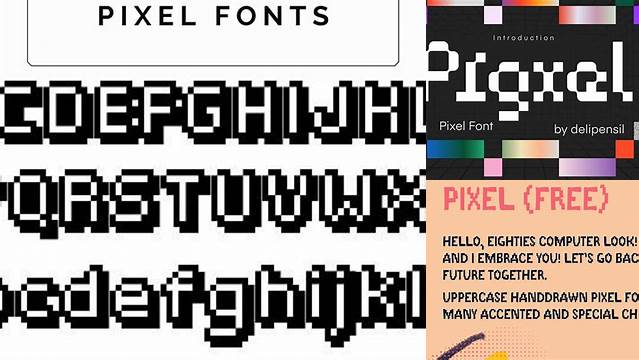
Hey guys! Looking for some awesome free pixel fonts? You've come to the right place! Reddit is a goldmine for discovering hidden gems, and that totally includes pixel fonts. This guide will dive deep into finding the best free pixel fonts shared on Reddit, exploring different styles, and even how to use them in your projects. So, let's get started and find that perfect pixelated typeface!
What are Pixel Fonts?
Before we jump into the Reddit rabbit hole, let's quickly define what pixel fonts actually are. Pixel fonts, at their core, are typefaces designed with a limited number of pixels. This gives them that distinct retro, blocky look we often associate with old-school video games and early computer interfaces. These fonts are crafted meticulously, pixel by pixel, to ensure legibility and a unique visual appeal, even at small sizes. The charm of pixel fonts lies in their simplicity and the nostalgia they evoke, making them a popular choice for projects aiming for a vintage or 8-bit aesthetic. But beyond nostalgia, these fonts offer practical advantages too. Their fixed-width nature ensures consistent spacing, vital for coding and other applications where precision is key. In essence, pixel fonts bridge the gap between retro design and modern usability, providing a versatile tool for designers and developers alike.
Why Use Pixel Fonts?
Okay, so why should you even bother with pixel fonts? Well, there are tons of reasons! First off, they're perfect for projects that need a retro vibe. Think video games, 8-bit art, or anything that wants to channel those classic aesthetics. But pixel fonts are more than just a stylistic choice. They're incredibly legible at small sizes, making them ideal for user interfaces, especially in applications with limited screen real estate. They also add a unique character and personality to your designs, setting them apart from the typical font choices. Plus, let's be honest, they're just plain cool! The distinct blocky appearance of pixel fonts instantly grabs attention and adds a touch of nostalgia, making them a powerful tool for visual communication. Whether you're designing a retro-themed website or a modern mobile app, pixel fonts can bring a unique flavor and functionality to your project. They're a fantastic way to blend the old with the new, creating designs that are both visually striking and highly readable.
Identifying Font Styles on Reddit
Reddit's communities often use specific terms to describe pixel fonts, so knowing the lingo can really help your search. You might see terms like "8-bit," "16-bit," "retro," "vintage," or even specific game genres like "arcade" or "platformer." Understanding these terms will allow you to narrow your search and find fonts that perfectly match the aesthetic you're going for. For example, an